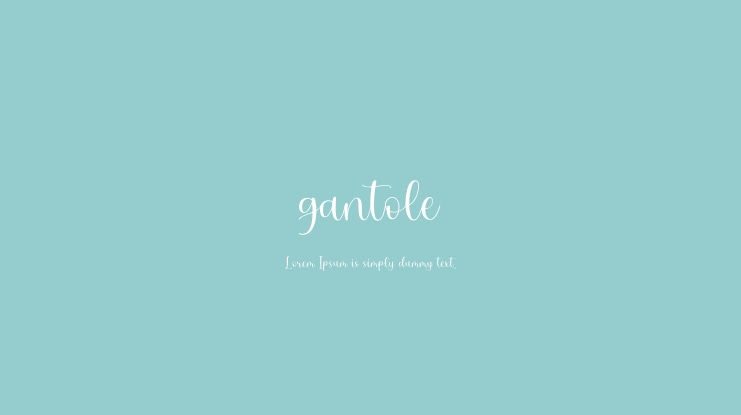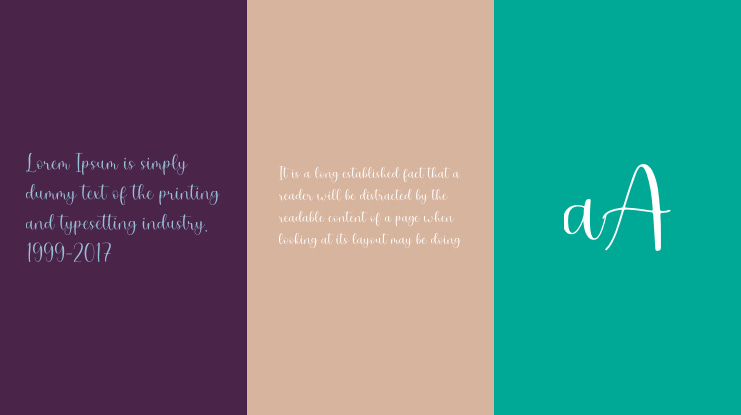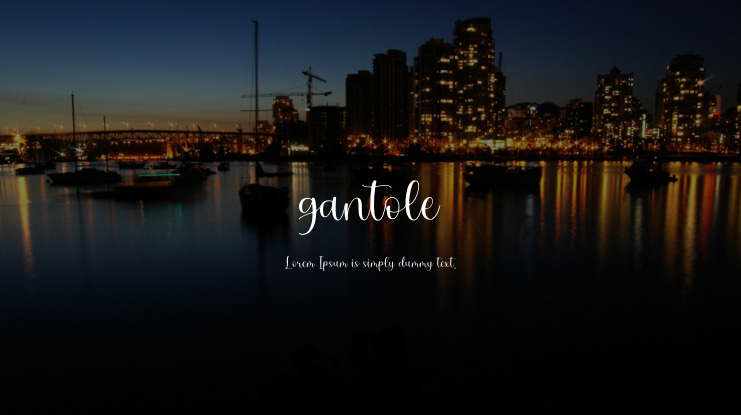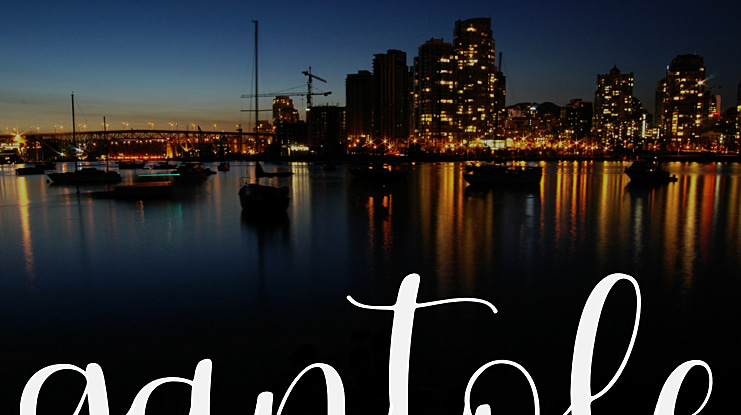
gantole Font
Gantole is a modern calligraphic font, with characters dancing along the baseline and an elegant touch. With nearly 420 glyphs. Features open types with alternative styles, bindings, and multiple language support. Can be used for various purposes such as logos, wedding invitations, headings, t-shirts, letterheads, signage, labels, news, posters, badges etc. To enable the OpenType Stylistic alternative, you need a program that supports OpenType features such as Adobe Illustrator CS, Adobe Indesign & CorelDraw X6-X7, Microsoft Word 2010 or a later version. Gantole is encoded with PUA Unicode, which allows full access to all additional characters without having to design special software. Mac users can use Font Book , and Windows users can use Character Map to view and copy any additional characters to paste into your favorite text editor/app.